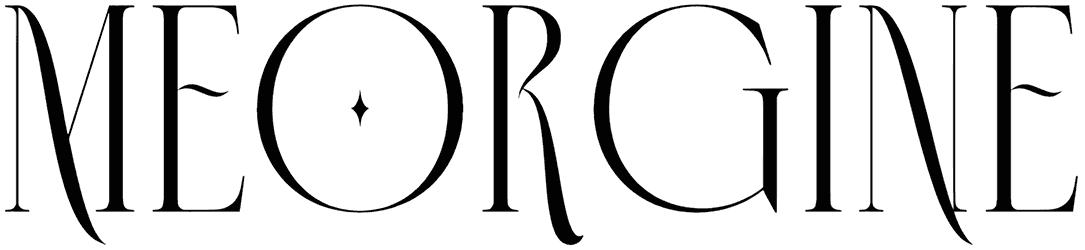
Meorgine Font
Usually, you can count on classic fonts for a fancy touch as well, but what Meorgine offers is way beyond that. The whole style is defined by its luxury, so no matter how high-end your project is, you’re going to be just fine using this serif font of ours.
Of course, that’s only true if you’re okay with it being a small-caps font, but anyway, it’s not like you’ll be needing the lowercase for fantasy movie logos, beauty product branding, etc.